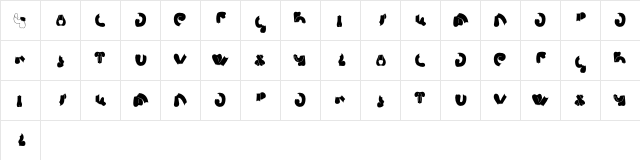
Semi Shaft Regular
Design Context for Semi Shaft Typeface
Semi Shaft is a composed and adaptable typeface that performs quietly and consistently across a wide range of design contexts.